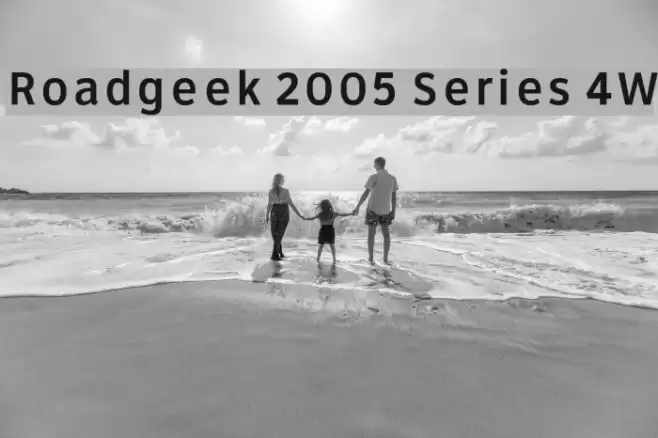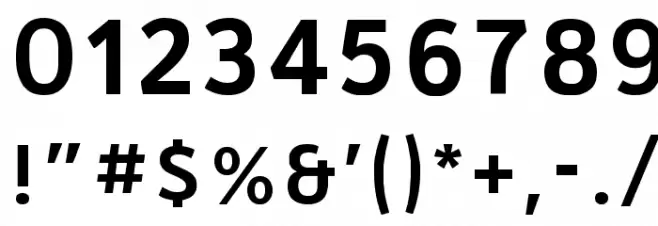
Roadgeek 2005 Series 4W Font
Roadgeek 2005 Series 4W Description
This font features a clean and modern sans-serif design, characterized by its uniform stroke width and geometric shapes. The uppercase letters are bold and assertive, while the lowercase letters maintain a consistent and harmonious appearance. The numerals are clear and easily distinguishable, making them suitable for various applications. Special characters are well-defined, adding to the font's versatility. The overall design is straightforward and functional, ideal for conveying information clearly and effectively.
A modern sans-serif font with geometric shapes and uniform stroke width from Uncategorized fonts.
- Proposed Projects: Ideal for road signage, informational displays, digital interfaces, and branding materials.
- Use Case: Headlines, Signage, Digital Interfaces